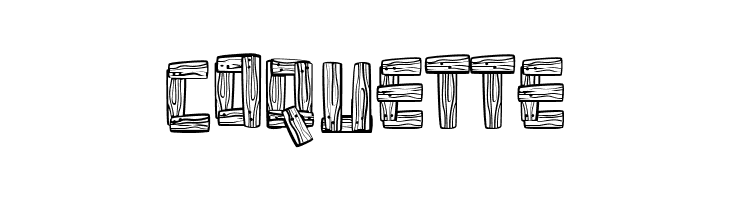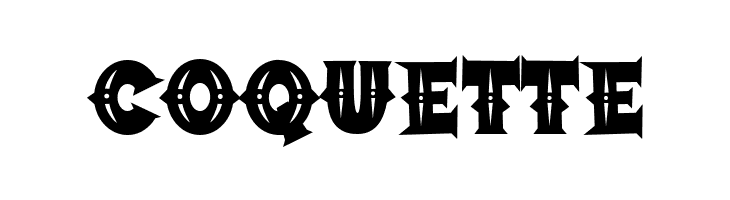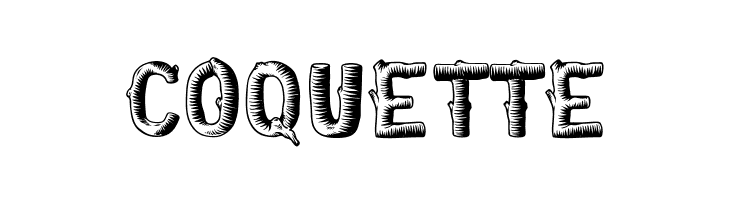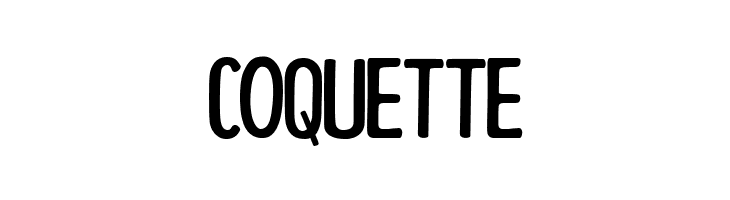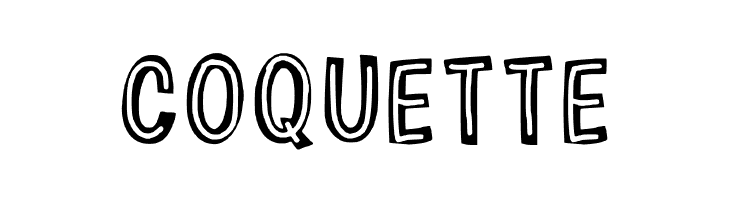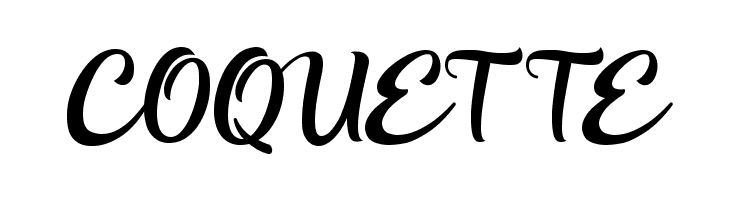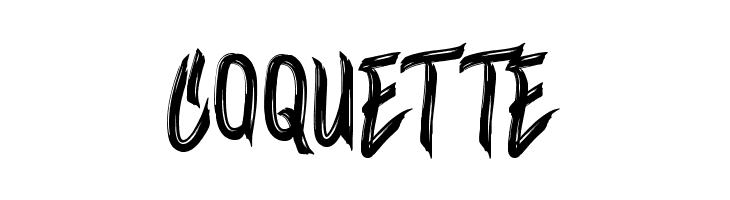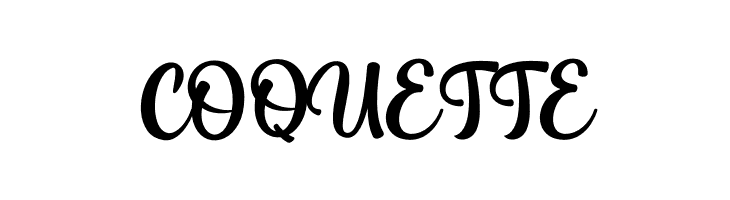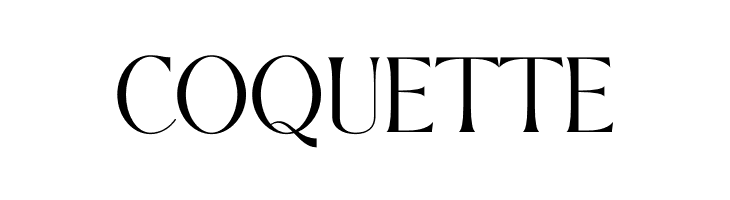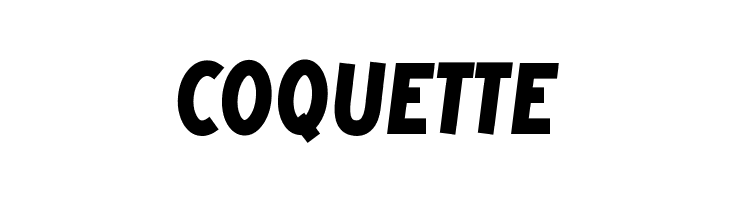
A distressed, vintage typewriter-style font with bold characters enclosed in squares.
A bold, decorative font with a vintage, three-dimensional style.
A bold, vintage-style font with a rugged, handcrafted appearance.
A bold, decorative font with a vintage, three-dimensional style.
A whimsical, hand-drawn font with tall, narrow letterforms and uneven strokes.
A flowing, cursive font with elegant loops and a handwritten appearance.
A bold, textured font with a vintage, distressed style.
A bold, angular font with a geometric and dramatic style.
A bold, dynamic font with a slight forward slant and modern appeal.
A slender, handwritten font with an elegant and artistic style.
A bold, expressive brush-style font with dynamic, hand-painted strokes.
A playful, winter-themed font with snow-like accents on each character.
A bold, playful font with a three-dimensional shadow effect.
A flowing, cursive font with elegant, elongated strokes and a calligraphic style.
A playful, hand-drawn font with irregular strokes and a whimsical style.
An elegant serif font with a blend of classic and modern elements, featuring refined serifs and graceful curves.
A decorative, textured font with whimsical curls and a hand-drawn feel.
Bold, wavy decorative font.
A whimsical, hand-drawn font with dynamic strokes and a magical feel.
A dynamic, expressive handwritten font with irregular, playful strokes.
A flowing, cursive font with interconnected letters and a playful elegance.
A bold, playful font with a hand-carved, outlined style.
A bold, blocky font with a woodcut style, enclosed in squares.
A textured, wood-carved style font with bold, rounded characters.
A bold, modern typeface with rounded edges and geometric structure.
A playful, hand-drawn font resembling wooden planks with a rustic, organic feel.
A playful, rounded font with a bold and friendly appearance.
A bold, eclectic display typeface with diverse styles and textures.